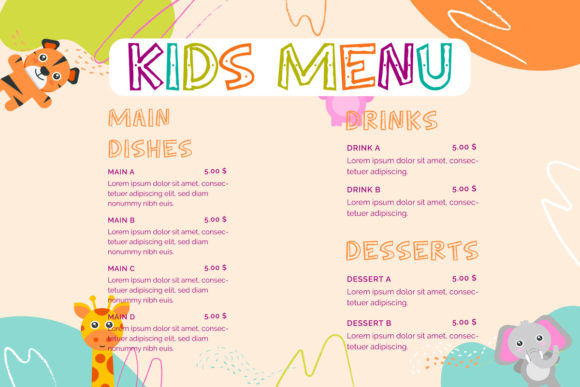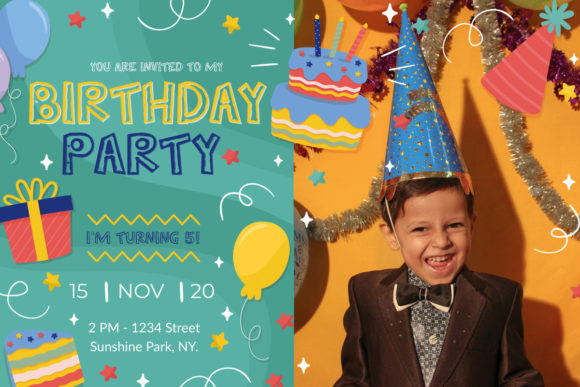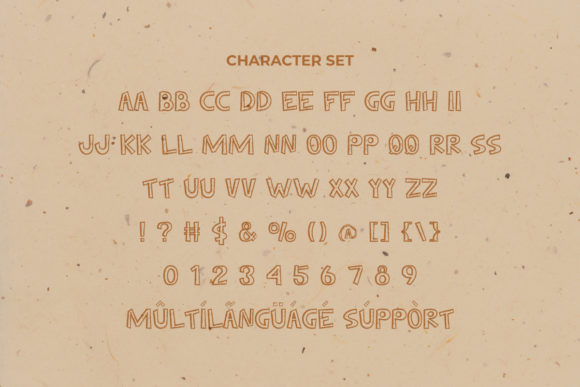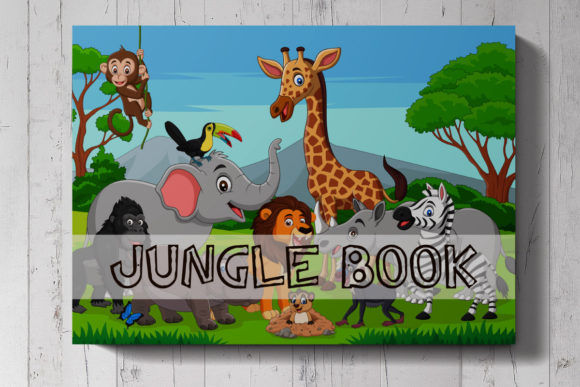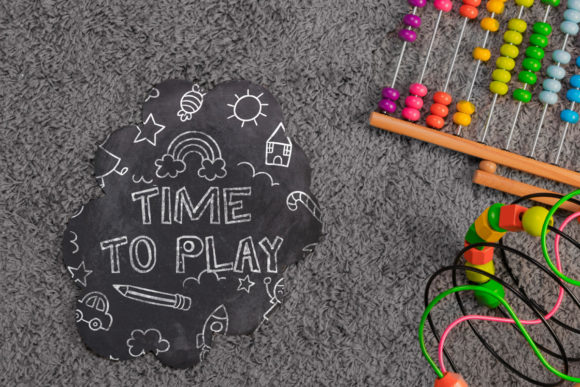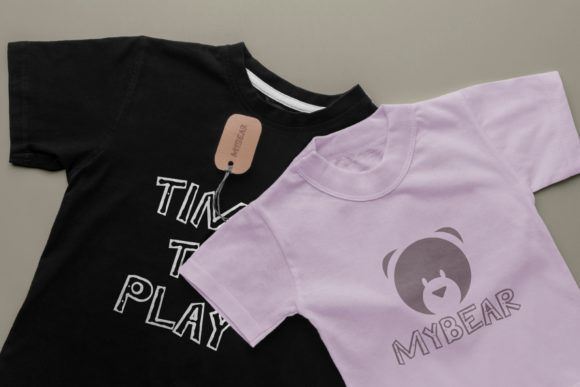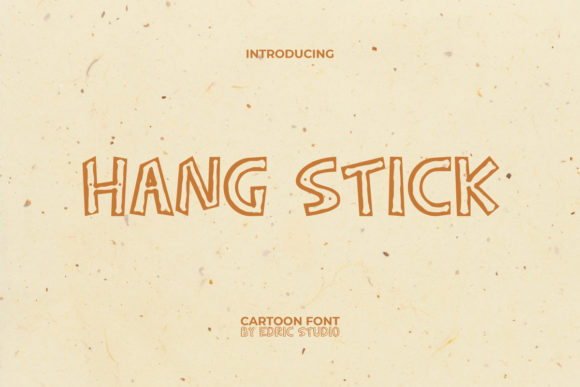
Introducing Hang Stick Font: The Ultimate Display Font for Chalkboard Quotes and Teaching Materials
Are you a designer, crafter, or educator looking for a unique and authentic font to add a personal touch to your designs? Look no further than Hang Stick Font, a cool and crafty looking display font that’s perfect for chalkboard quotes, teaching materials, and more. In this article, we’ll dive into the features and benefits of Hang Stick Font, and explore how it can elevate your designs to the next level.
What is Hang Stick Font?
Hang Stick Font is a display font designed to mimic the look of chalkboard writing. Its authentic, hand-crafted appearance makes it an ideal choice for creating chalkboard quotes, posters, and other visual materials that require a personal and realistic feel. Whether you’re a teacher looking to create engaging lesson plans, a designer seeking to add a touch of whimsy to your projects, or a crafter wanting to create unique and eye-catching signs, Hang Stick Font is the perfect tool for the job.
Key Features of Hang Stick Font
- Authentic Chalkboard Look: Hang Stick Font is designed to replicate the look of chalkboard writing, complete with subtle imperfections and texture.
- Crafty and Cool: This font’s unique, hand-crafted appearance makes it perfect for adding a touch of personality to your designs.
- Display Font: Hang Stick Font is optimized for use as a display font, making it ideal for headlines, titles, and other prominent text elements.
- Easy to Read: Despite its informal appearance, Hang Stick Font is surprisingly easy to read, making it perfect for use in teaching materials and other applications where legibility is key.
Benefits of Using Hang Stick Font
So why choose Hang Stick Font for your design projects? Here are just a few benefits of using this versatile and charming font:
- Adds a Personal Touch: Hang Stick Font’s authentic, hand-crafted appearance adds a personal and realistic feel to your designs, making them more engaging and relatable.
- Perfect for Chalkboard Quotes: Whether you’re creating social media graphics, posters, or other visual materials, Hang Stick Font is the perfect choice for chalkboard quotes and other inspirational sayings.
- Ideal for Teaching Materials: Teachers and educators will love Hang Stick Font’s clear, easy-to-read appearance, making it perfect for use in lesson plans, worksheets, and other teaching materials.
- Versatile: Hang Stick Font can be used in a wide range of design applications, from digital graphics to print materials, and even DIY crafts and signs.
How to Use Hang Stick Font in Your Designs
Ready to get started with Hang Stick Font? Here are a few tips for incorporating this amazing font into your design projects:
- Pair with Other Fonts: Hang Stick Font pairs perfectly with other fonts, such as sans-serif fonts for a modern look or script fonts for a more whimsical feel.
- Experiment with Colors: Hang Stick Font looks great in a range of colors, from classic black and white to bright, bold hues.
- Add Texture and Patterns: Take your designs to the next level by adding texture and patterns, such as subtle chalkboard textures or playful polka dots.
Hang Stick Font is a game-changing display font that’s perfect for designers, crafters, and educators looking to add a personal and realistic touch to their designs. With its authentic chalkboard look, crafty and cool appearance, and easy-to-read design, Hang Stick Font is the ultimate choice for chalkboard quotes, teaching materials, and more. So why wait? Download Hang Stick Font today and start creating stunning, one-of-a-kind designs that are sure to impress!